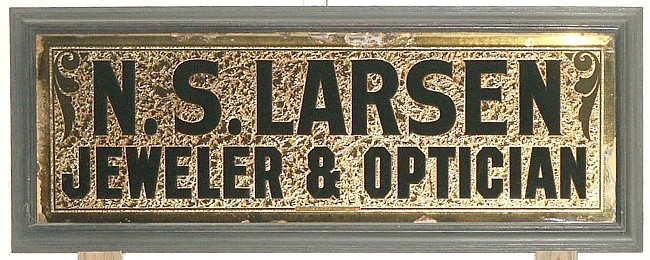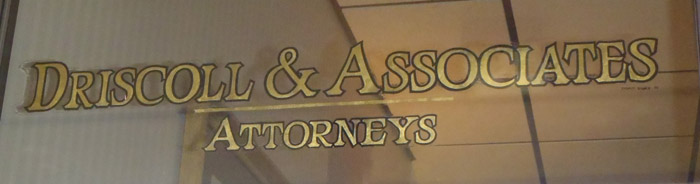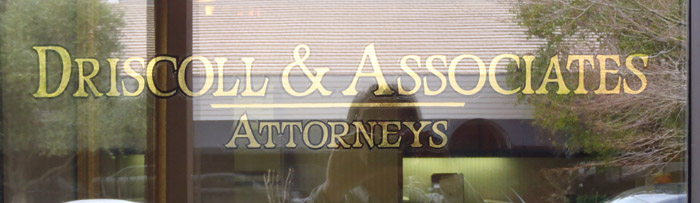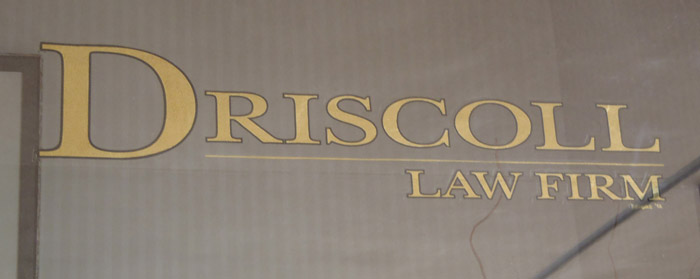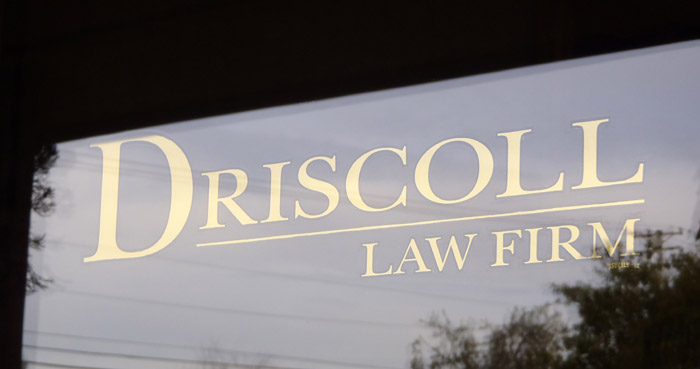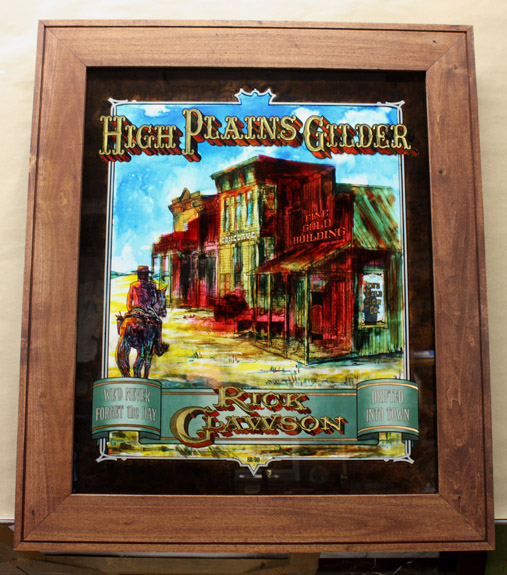
Original Dead Men
Re: Original Dead Men
Nice piece Larry. It looks like that frame got some sand blastin' to raise the grain. Am I right?
Re: Original Dead Men
Twill, I've always thought that men like us do sandblast
work because we can. Because we're better at it than
most. Well, it beats punching cows or digging copper.
Or soldiering. You can do it on glass, or wood, or metal,
get paid regularly...and you sort of know when to do it
and how. Like on wood frames....
That Lloyd & Magnus commission I'm working on...
Well it's comin' out real nice. I'll be postin' some
pictures of it before too long.
Re: Original Dead Men
Hold on!...now just hold on!
I don't buy reverse glass signs, I make 'em!
So I've decided to part with this original Rawson & Evans sign I have.
Re: Original Dead Men
You don't sell the dream of a lifetime.
Re: Original Dead Men
...But I do!....
Re: Original Dead Men
Gee Wiz Larry! (that's the Beav talking)
What's up with the Spring Cleaning?
It's not spring yet ya know.
Rent must be due next Wednesday! A man in his right mind would not part with such treasures for a few paltry dollars...or at all!
Re: Original Dead Men
As it's goin', Larry n' me won't have no need for such things at the slabs.
We're lighten'n our load. Am I right Larry, am I close?
Just the sun beatin' down at the slabs. It'll curl up yur ol' paint fer the wind to blow away, leaded or not, it don't matter out there.
Re: Original Dead Men
I would never had sold no Rawson & Evans to no underhanded man such as yourself had I known he would sell it on the open market to some common horse thief. A court of law will decide in my favor and return my fathers glass piece to me. You will be left with nothing but your ill health and no gold pieces which are mine as well ! That is my last offer....
Re: Original Dead Men
I tried to sell it back to you, boy.
Best make peace with your bad deeds....
Now, how many glass signs does a fella need?
HOW MANY?
I've got right around 150....most made from my own hand...
some made by some of my pelt wearin' trapper friends.
I do not know what is to become of me. I hope and pray
that I will not be slighted and compelled to go into low
company out on the slabs.
If you see my skull collection up for sale, you'll know times
are in a desperate way........
May the Great Spirit watch over you!
Aho!
Re: Original Dead Men
Brilliant Larry.
I recall you showing the source document some months ago.
Re: Original Dead Men
Blake, you shine like the door of a boar house....
here is a window I gilded in 1994...
this was my second gold leaf window, no instructions, self taught, followed the Gold Leaf Techniques manual.
Water sized the 23k, then outlined in reverse with prussian blue japans
Re: Original Dead Men
2012, the attorney had a name change,
this time I used the mask method, 1/8" black outlines first,
water gild as the second step
Re: Original Dead Men
Very nice Larry! I'll be wanting to see that someday....
Tony, I like the original one you did in '94 better. Can't beat that hand lettered look. Good job!
Re: Original Dead Men
Put the vinyl away, LeJenco!
Congratulations...you've gone from hand letterer, to vinyl slapper!
Well, here ya go. Been workin' on this for the last 3 months.
Gotta little bit of everything!
Now what am I gonna do.....
Nice one Larry! I like the way the center boarder piece behind the portrait is offset to the left. Nice touch. Lots of dimension. Is that palladium leaf on the boarder with the circular patterns? Whats the size on this piece.
This was replicated from an old antique toy catalog cover from 1896.
Here is last year's finished project, designed by that Blake fella.
I guess mine is the only one finished at this time,
nobody else brought theirs.
And, here is this year's piece, designed by Mr Choo Choo, almost finished.
Everybody will have to wait and see who will pop out with a finished and framed glass first.
We had a lively time.
Time just gets away from us.